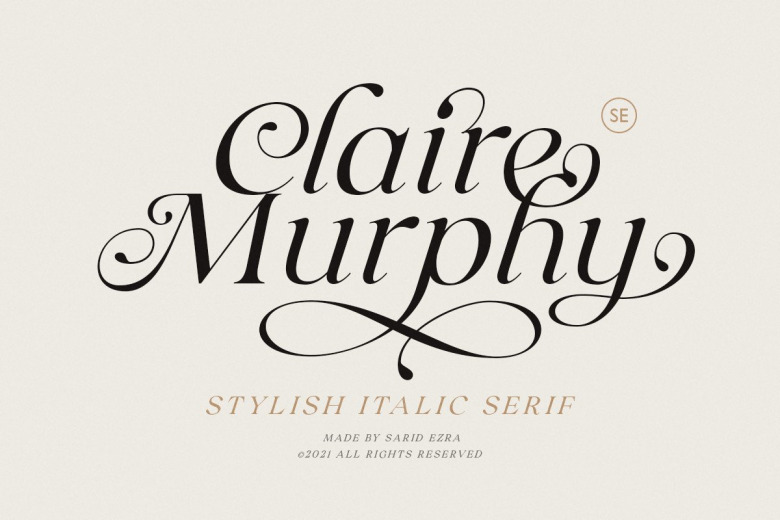
Claire Murphy Font
Claire Murphy is a classic and stylish serif font. Its flexibility and neat style will brighten up each of your designs. Have fun with this cool font and explore its endless variations.